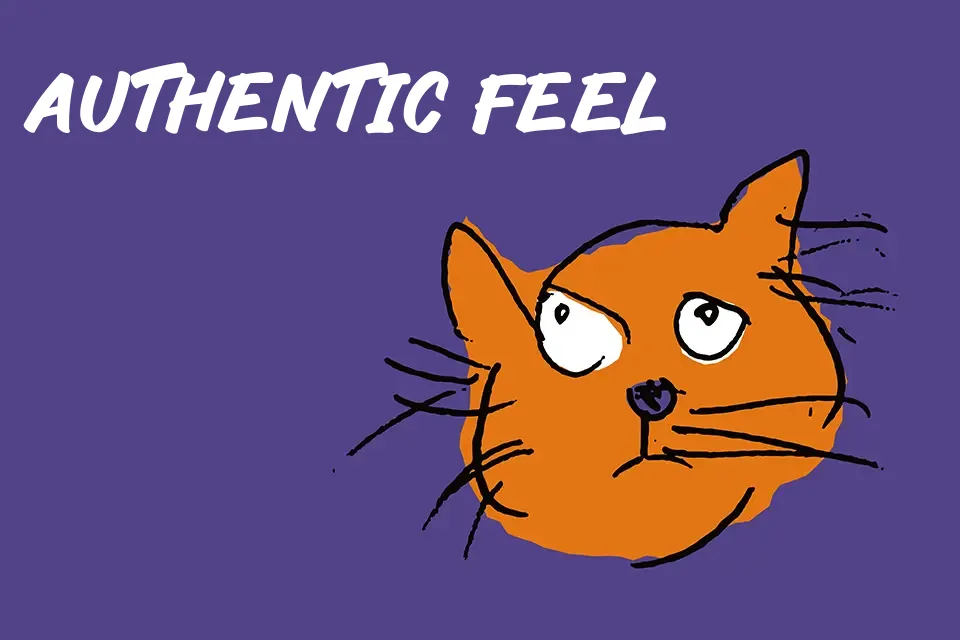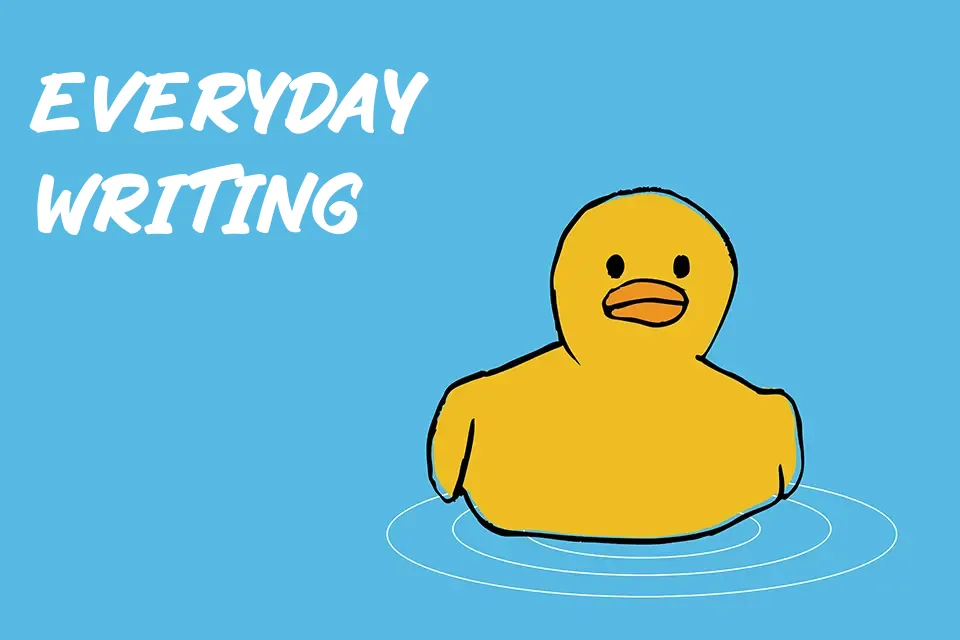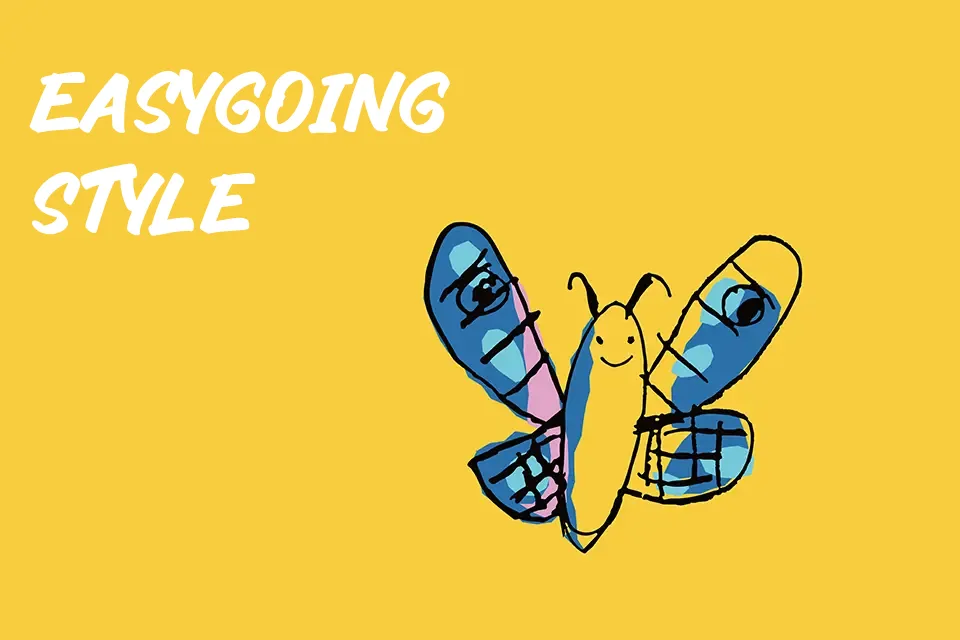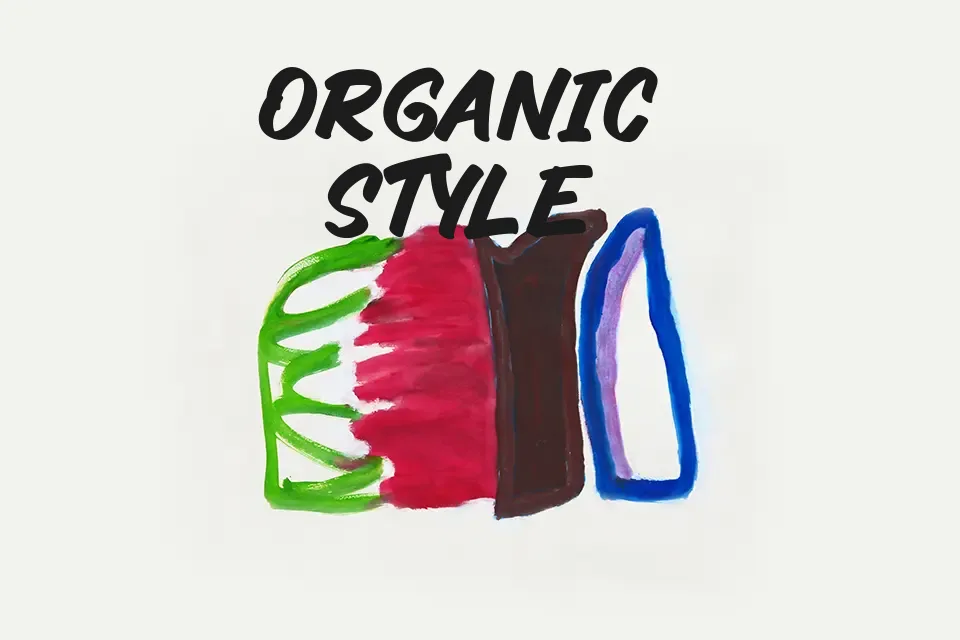
Rowan Maskide Font
A short product label or poster headline benefits from the energetic structure of Rowan Maskide Font. The letterforms display smooth, marker-like strokes with a casual, handwritten rhythm that feels highly organic. Its proportions lean slightly condensed, while the balanced spacing helps maintain clarity in larger headlines. This typeface performs exceptionally well in casual branding, children’s apparel graphics, and vibrant event posters where a friendly aesthetic is required. However, the bouncy baseline and playful proportions make it less suitable for long paragraphs or dense editorial layouts. The dense forms reduce comfort during extended reading, making the design much more effective when restricted to medium and large display sizes.
toy product packaging
children’s book covers
casual apparel graphics
vibrant event posters
corporate financial reports
Perfect for headline, kids, and packaging, with a friendly and cartoon style.